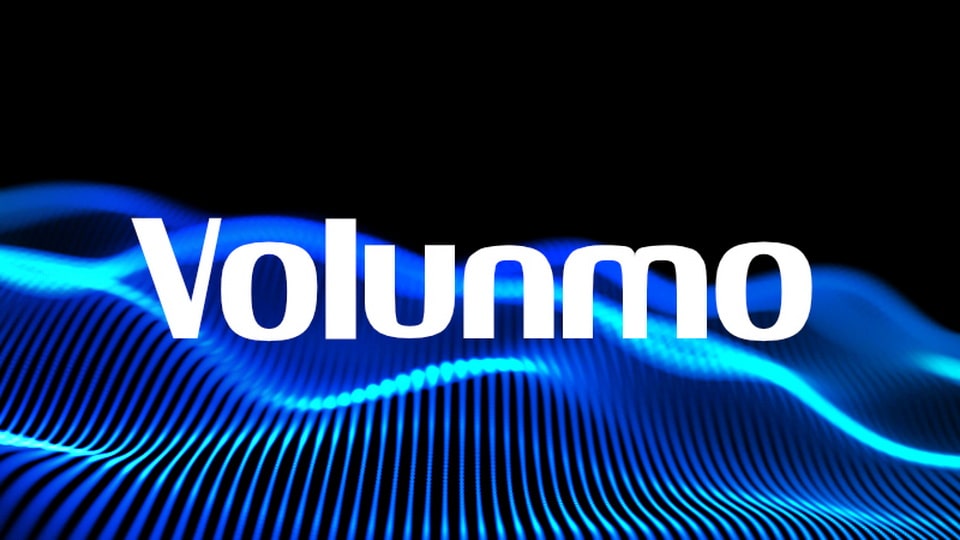
Download Volunmo font, a bold display typeface based on a combination such as a little playful and technology or futuristic that are most legible in the character.